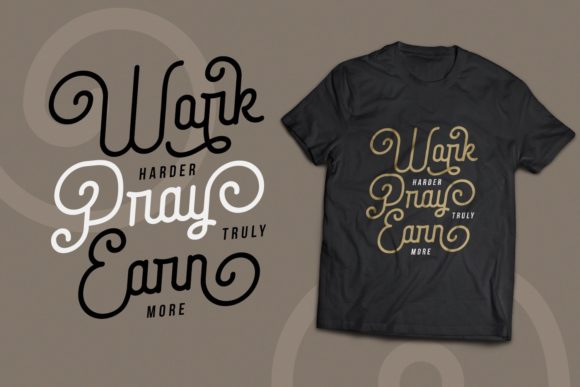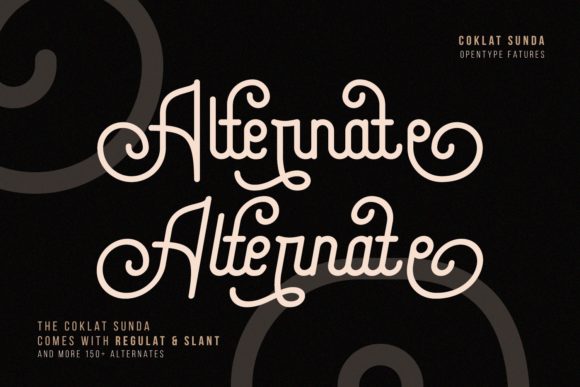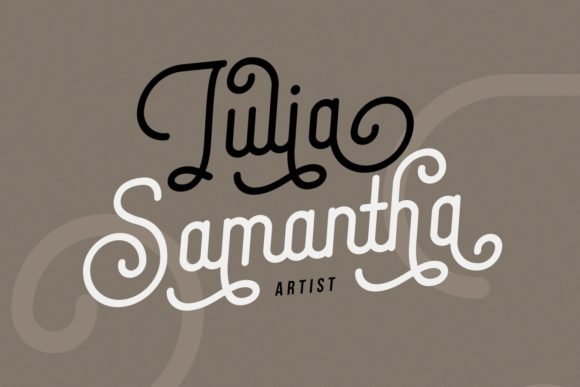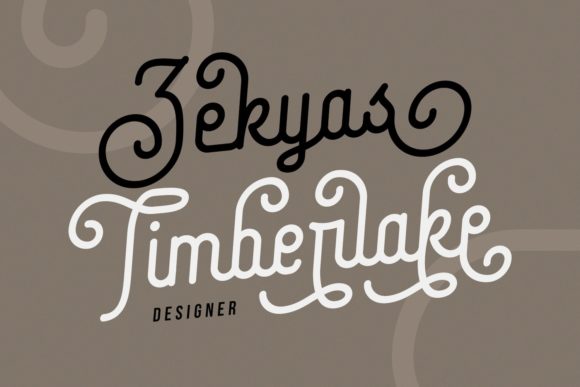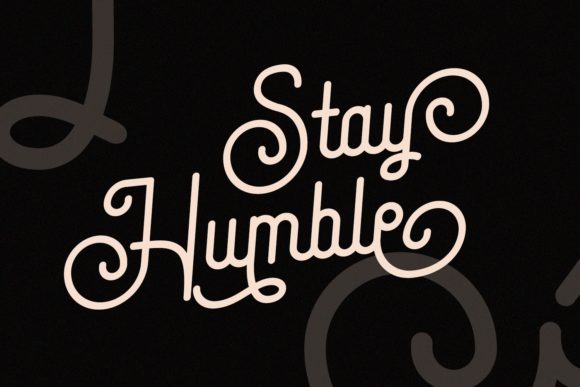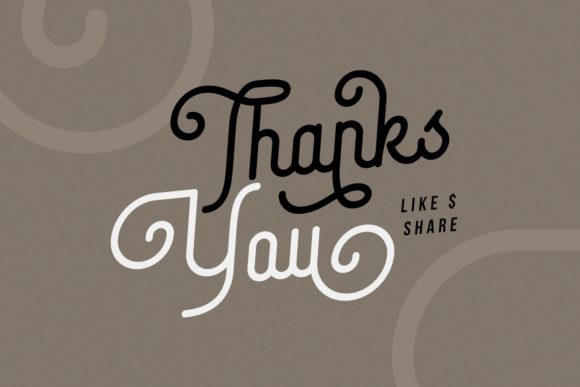
Coklat Sunda Font: Elevate Your Designs with Elegance and Sophistication
Coklat Sunda – The Monoline Font is a unique and elegant display font that has been gaining popularity among designers and crafters alike. Its stylish look and versatility make it an excellent choice for a wide range of design projects, from branding and advertising to packaging and digital media. In this article, we’ll explore the features and benefits of Coklat Sunda Font, and how you can use it to elevate your designs.
What is Coklat Sunda Font?
Coklat Sunda Font is a monoline font, which means that it features a single line of varying thickness to create the letterforms. This style of font is known for its clean, minimalist look, and Coklat Sunda takes it to the next level with its elegant and refined design. The font is perfect for creating eye-catching headlines, titles, and logos that exude sophistication and style.
Key Features of Coklat Sunda Font
- Unique and Elegant Design: Coklat Sunda Font boasts a distinctive and stylish design that sets it apart from other fonts. Its monoline style gives it a modern and sleek look that’s perfect for designs that require a touch of elegance.
- High Versatility: This font is highly versatile and can be used for a wide range of design projects, including branding, advertising, packaging, and digital media.
- Easy to Read: Despite its elegant design, Coklat Sunda Font is easy to read, making it perfect for use in body text as well as headlines.
- Multilingual Support: The font supports multiple languages, making it a great choice for designers who work on international projects.
Benefits of Using Coklat Sunda Font
So, why should you choose Coklat Sunda Font for your design projects? Here are just a few benefits of using this amazing font:
- Adds Elegance and Sophistication: Coklat Sunda Font can instantly elevate your designs and add a touch of elegance and sophistication.
- Stand Out from the Crowd: With its unique and stylish design, Coklat Sunda Font can help your designs stand out from the crowd and grab attention.
- Perfect for Branding and Advertising: The font is perfect for use in branding and advertising projects, where you need to create a strong and memorable visual identity.
How to Use Coklat Sunda Font in Your Designs
Using Coklat Sunda Font in your designs is easy. Here are a few tips to get you started:
- Pair it with Other Fonts: Coklat Sunda Font looks great when paired with other fonts. Try pairing it with a sans-serif font for a modern look or a serif font for a more traditional look.
- Experiment with Colors: The font looks great in a variety of colors, so don’t be afraid to experiment and find the perfect color scheme for your design.
- Use it for Headlines and Titles: Coklat Sunda Font is perfect for use in headlines and titles, where you need to create a strong visual impact.
| Font Name | Coklat Sunda Font |
| Author | Graphicfresh |
Coklat Sunda – The Monoline Font is a unique and elegant display font that’s perfect for designers and crafters who want to add a touch of sophistication and style to their designs. With its stylish look, versatility, and ease of use, it’s an excellent choice for a wide range of design projects. Whether you’re working on branding, advertising, packaging, or digital media, Coklat Sunda Font is sure to inspire and elevate your designs.